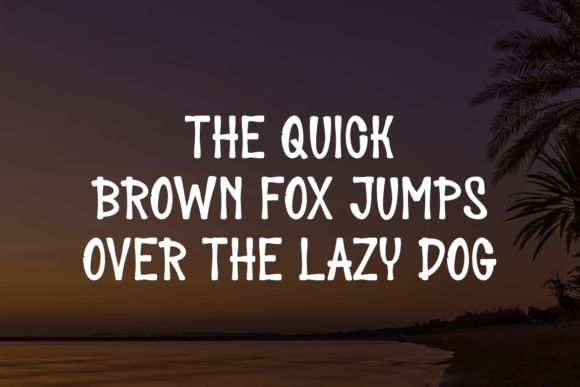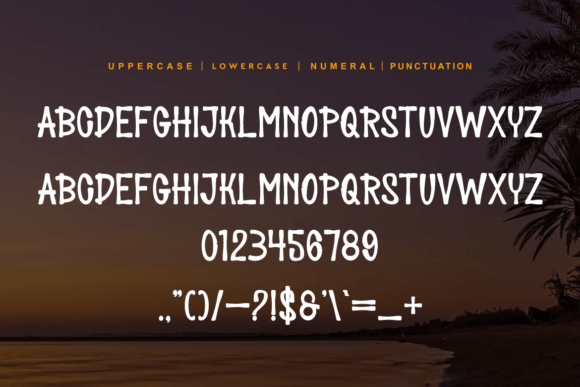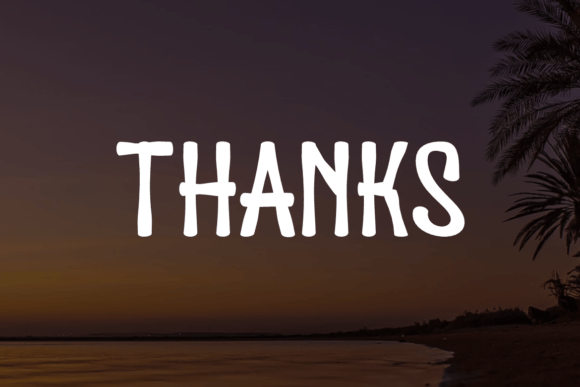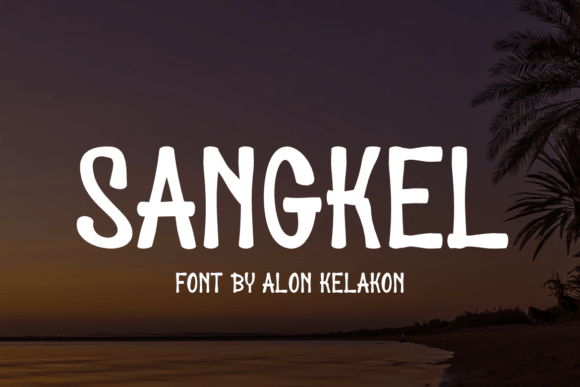
Introduction to Sangkel Font
Introducing an exceptional font that promises to make your design project stand out.
Unveil your creativity with this extraordinary asset – perfect for a multitude of applications such as labeling, adding drama to a movie scene, catching attention with a poster, creating a distinctive movie title, jazzing up gigs, enhancing album covers, and making logos truly memorable Comes with OTF, TTF, and WOFF formats to cater to every designer’s specific needs.
Sangkel Font offers exceptional quality and versatility, making it a valuable addition to your design toolkit. Whether you’re creating for personal projects or commercial use, Sangkel Font delivers professional results.